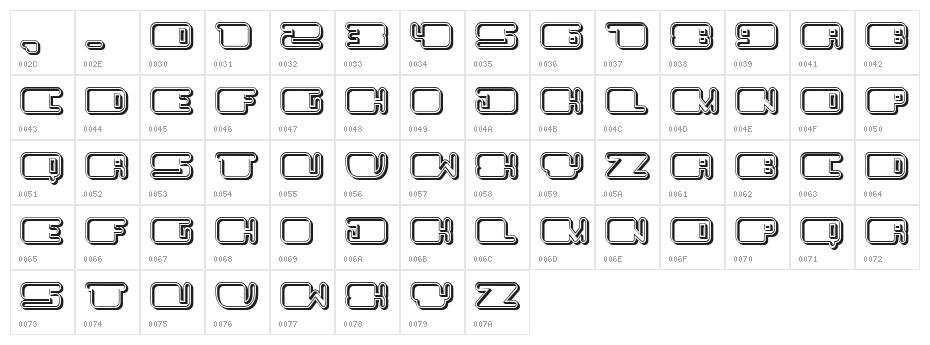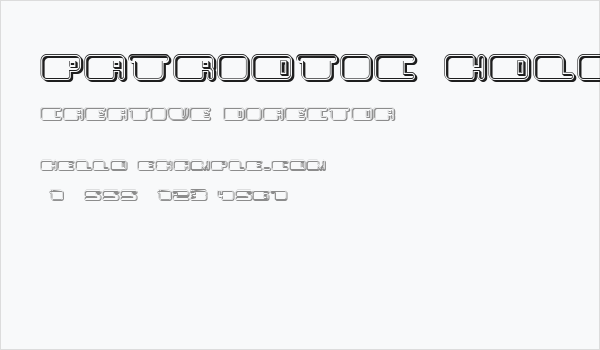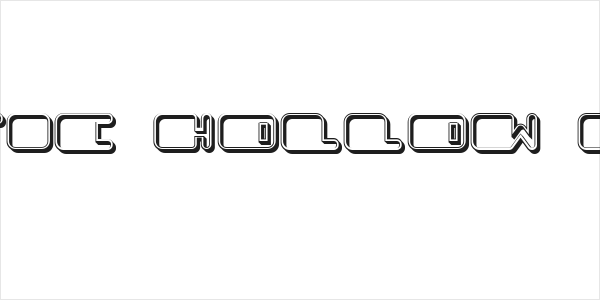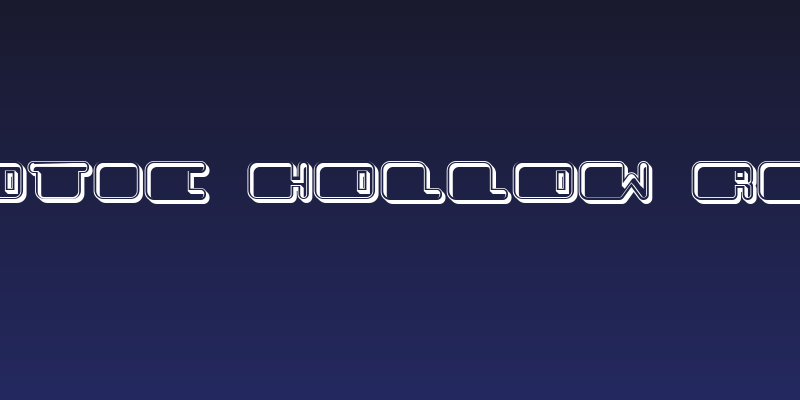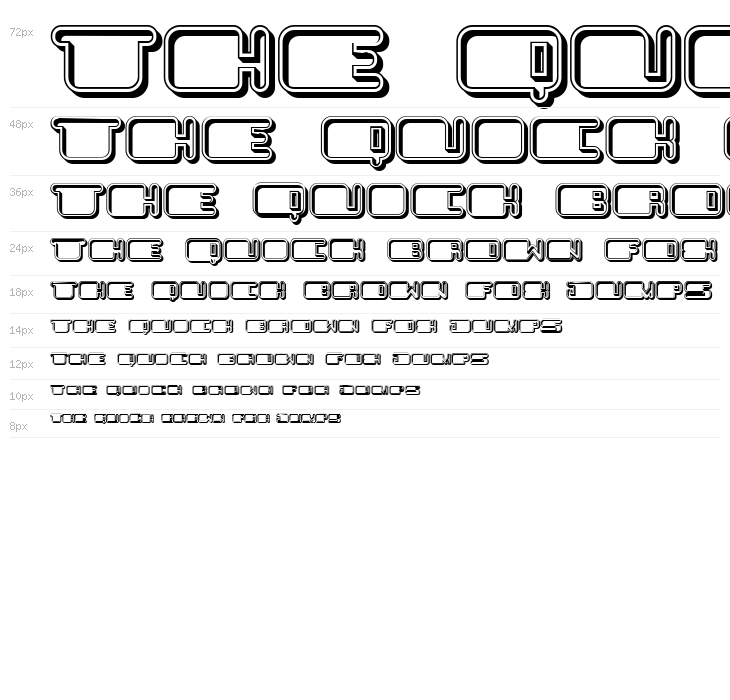
Patriotic Hollow Regular Font
Patriotic Hollow Regular Description
This font features a bold, hollow design with a distinct outline that gives each character a three-dimensional appearance. The geometric shapes are consistent throughout, providing a modern and structured look. The uppercase and lowercase letters maintain a uniform style, with rounded edges and a clean, futuristic aesthetic. Numbers and special characters follow the same design principles, ensuring a cohesive visual experience. The font's hollow nature makes it ideal for designs that require a striking yet minimalistic touch.
| Proposed Projects | Ideal for posters, logos, and branding materials that require a modern and eye-catching typeface. |